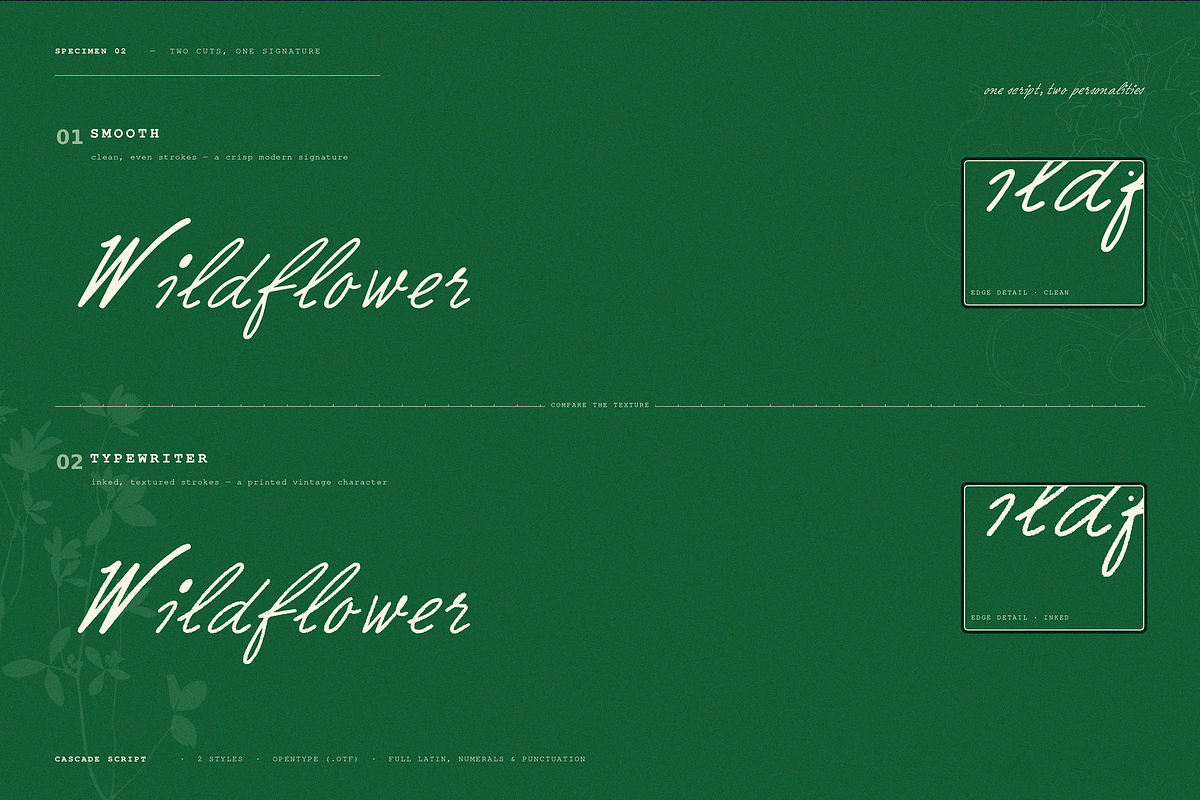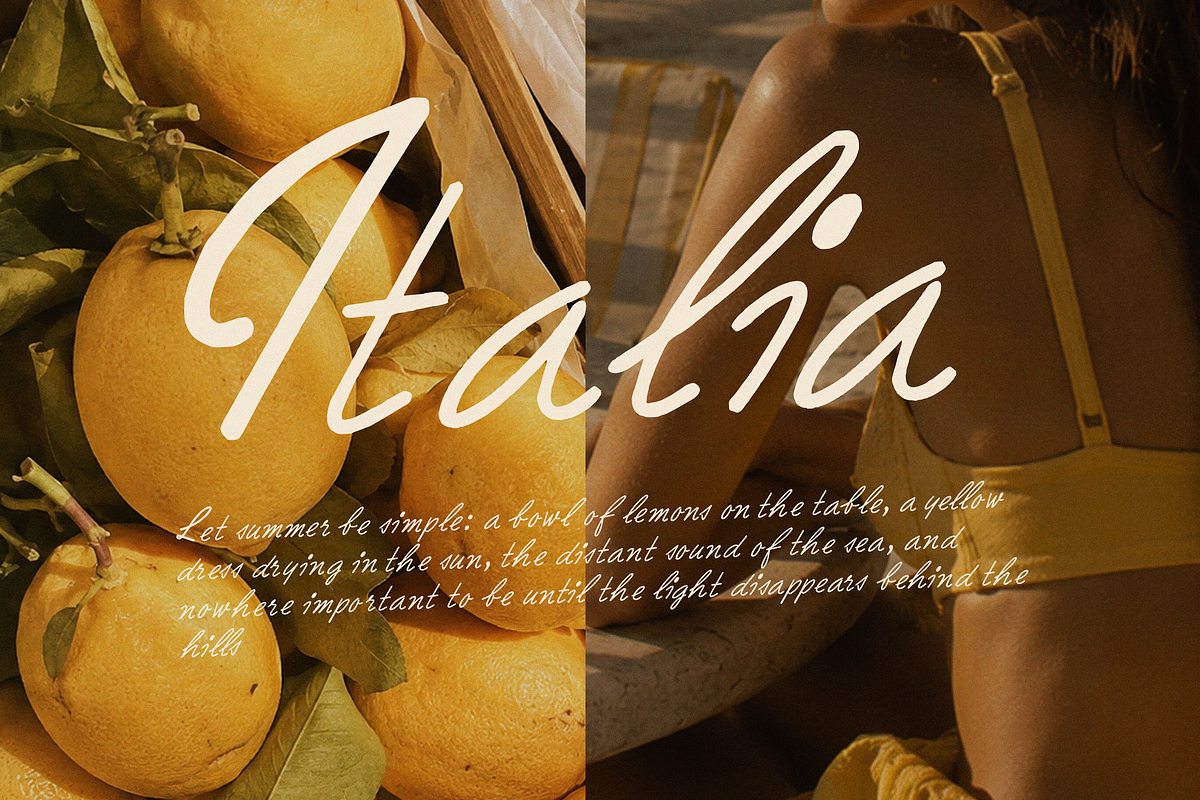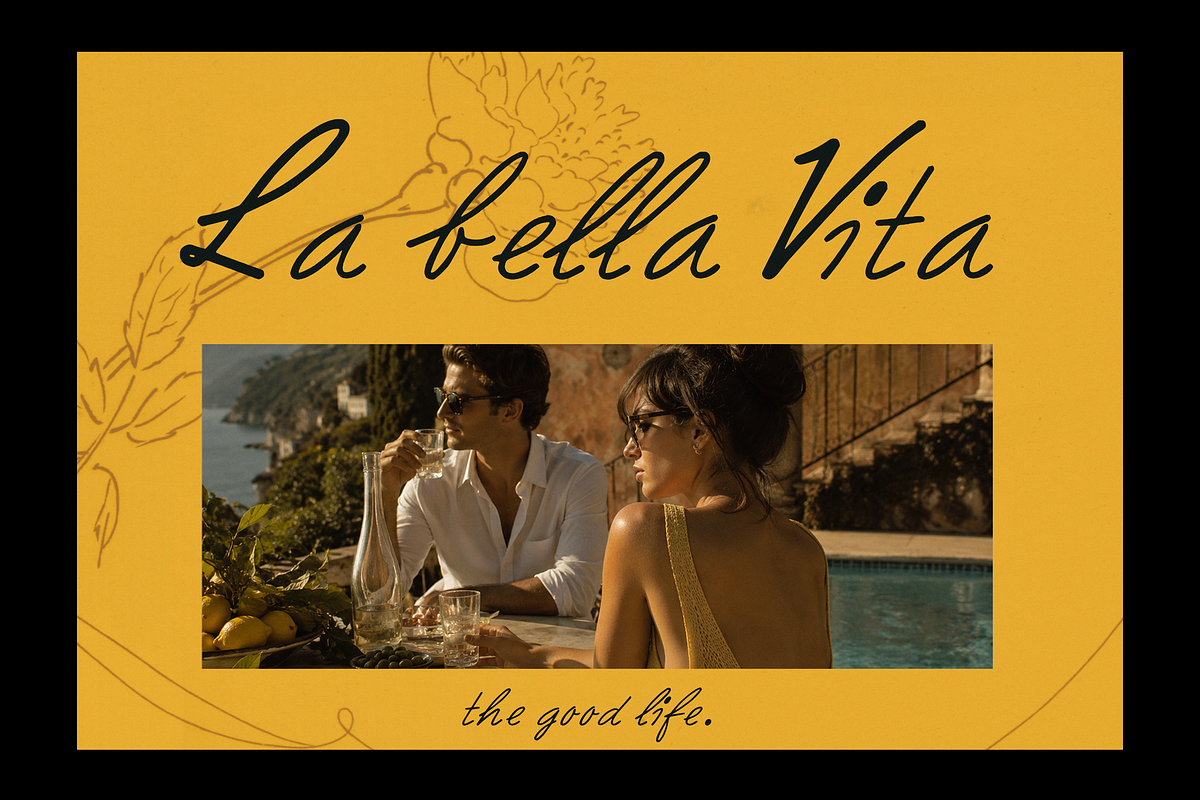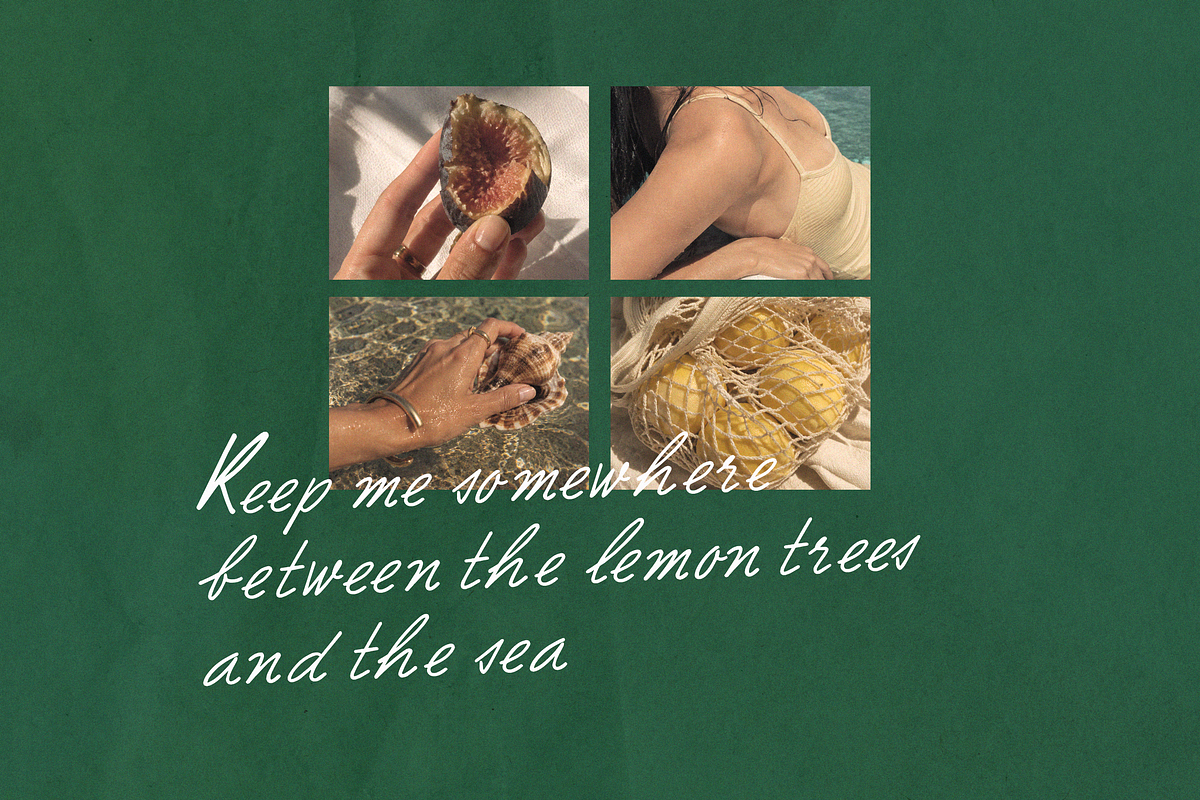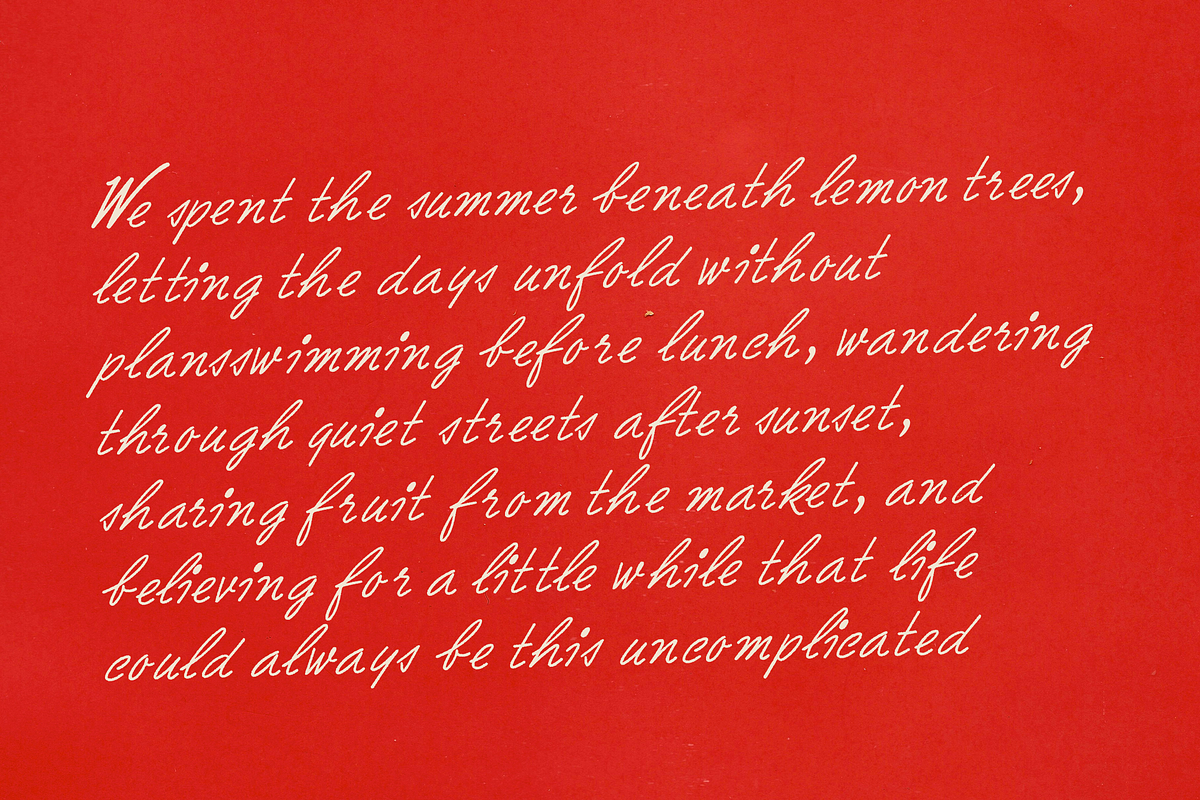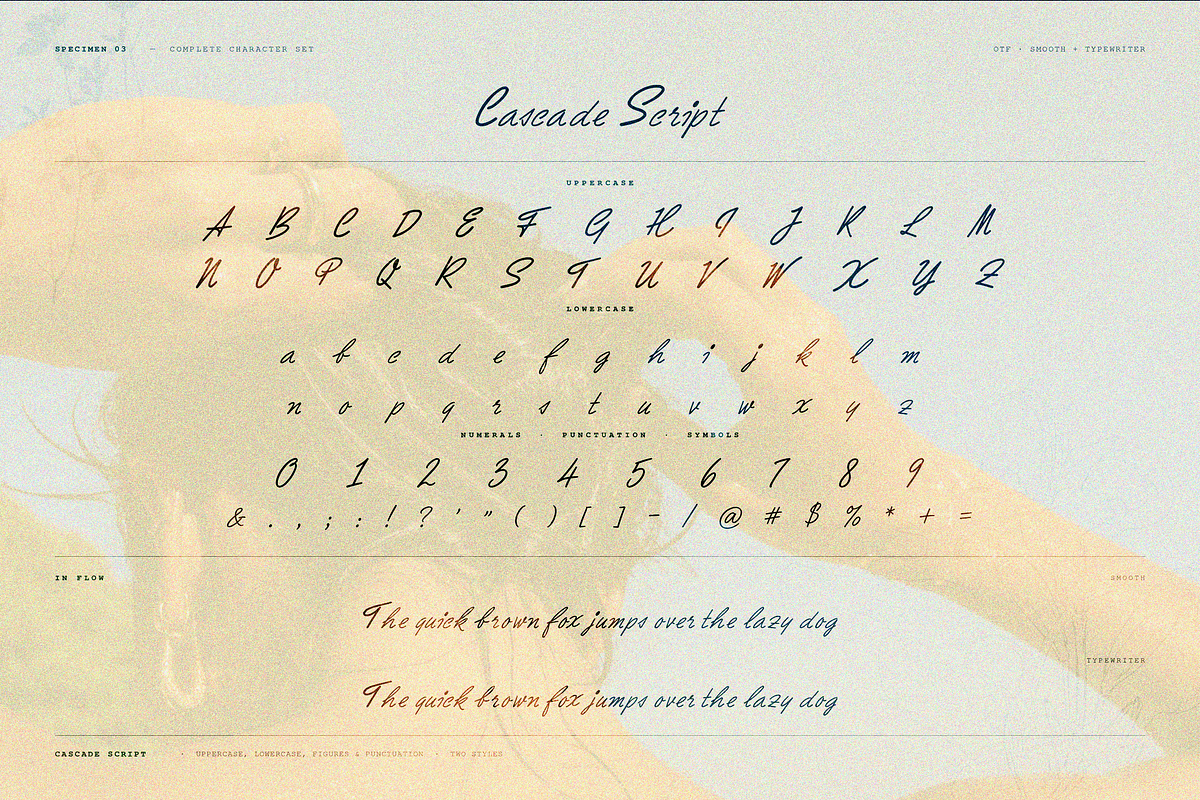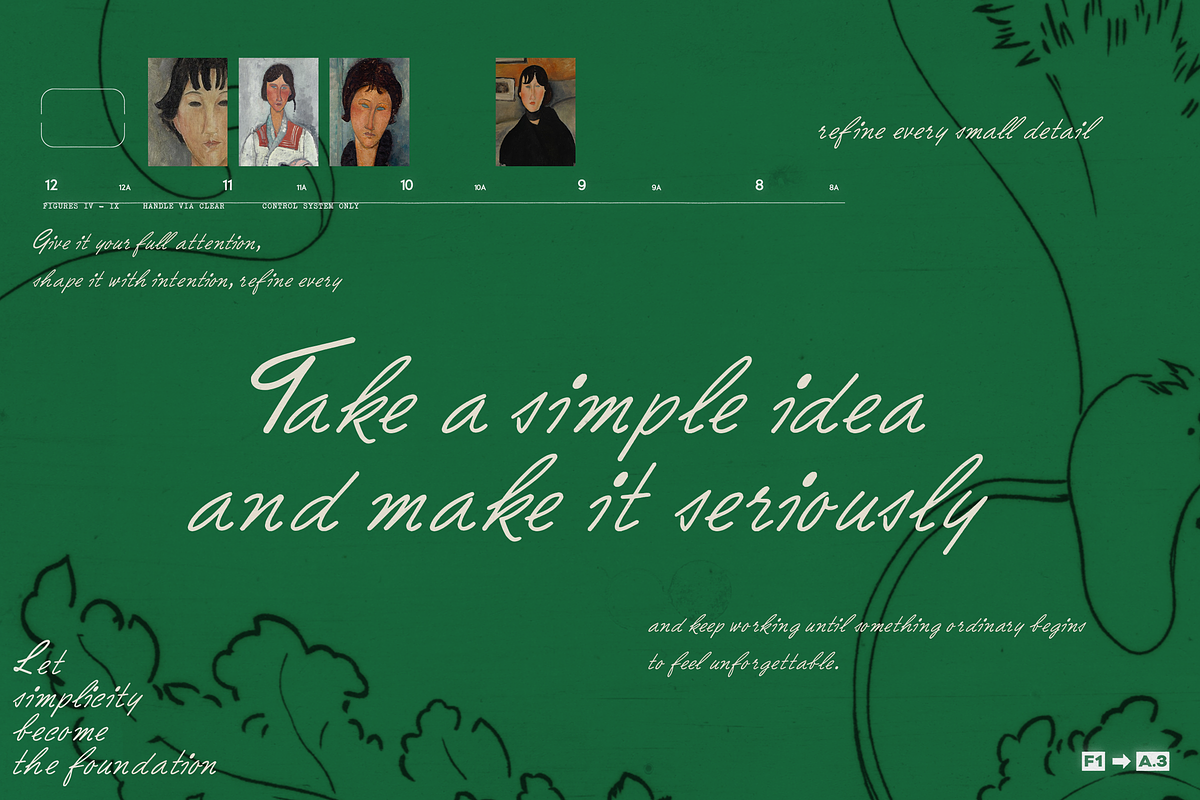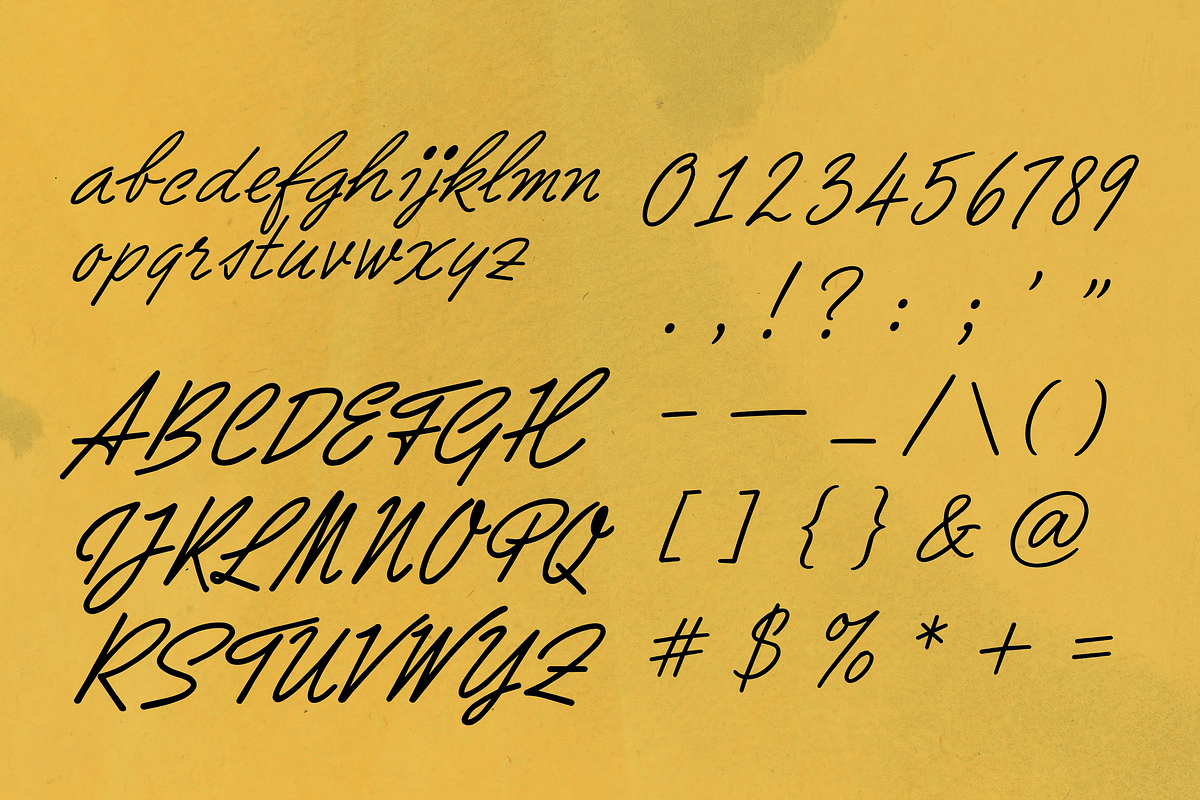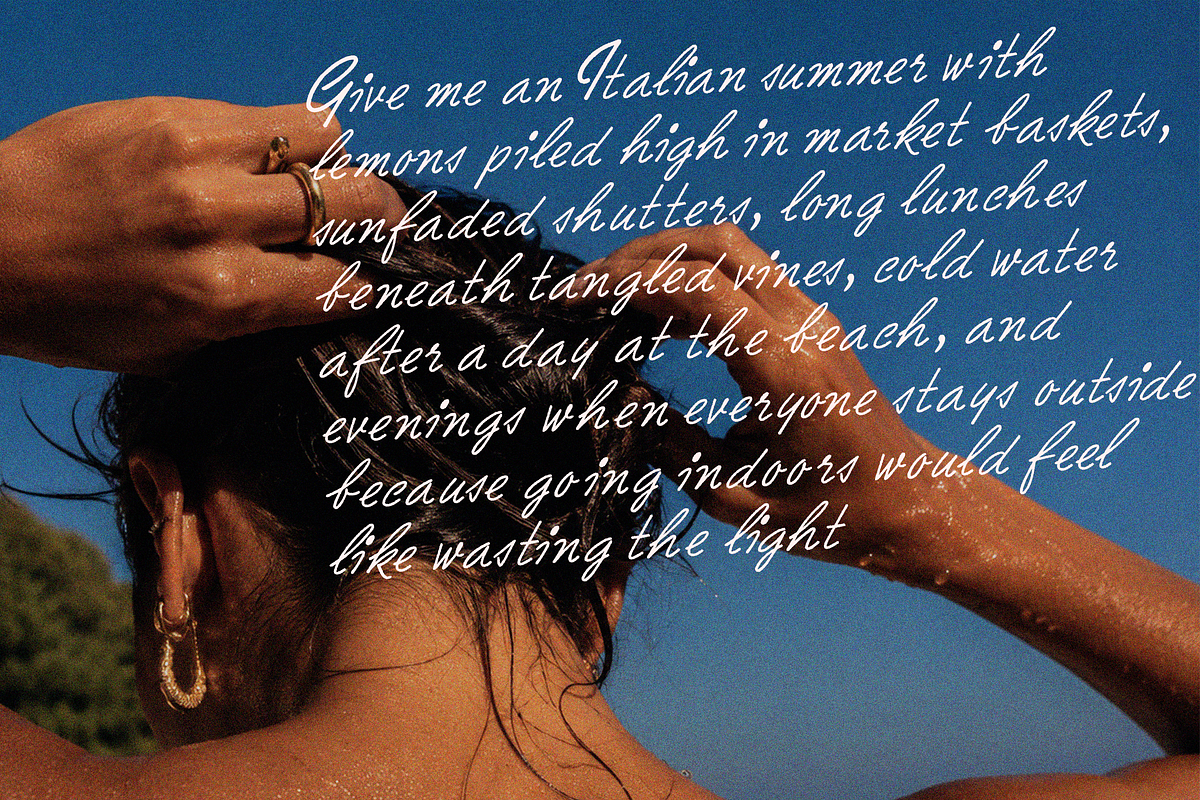
Cascade Script
Cascade Script is a modern revival of a script discovered in an old lettering book, carefully reinterpreted for contemporary design while preserving the charm, movement, and personality of the original hand-drawn letterforms.
Rather than smoothing away its history, Cascade Script celebrates it. The graceful slant, elongated strokes, expressive capitals, and naturally imperfect rhythm give the typeface the feeling of lettering taken from another era and brought back to life for modern use.
The family includes two distinct styles:
Smooth presents the lettering with clean, refined edges and even strokes, creating a polished version suitable for elegant branding, editorial work, invitations, packaging, and sophisticated display typography.
Typewriter Texture introduces an aged, inked finish inspired by old printed pages and imperfect analog reproduction. Its irregular texture gives the lettering a more nostalgic, tactile character while retaining the same graceful forms of the Smooth style.
Together, the two versions allow Cascade Script to move effortlessly between clean contemporary typography and authentic vintage-inspired design.
Cascade Script is especially suited for editorial layouts, fashion branding, Mediterranean and summer-inspired projects, packaging, wedding stationery, restaurant and café identities, photography overlays, posters, product labels, magazines, book covers, quotes, and romantic visual storytelling.